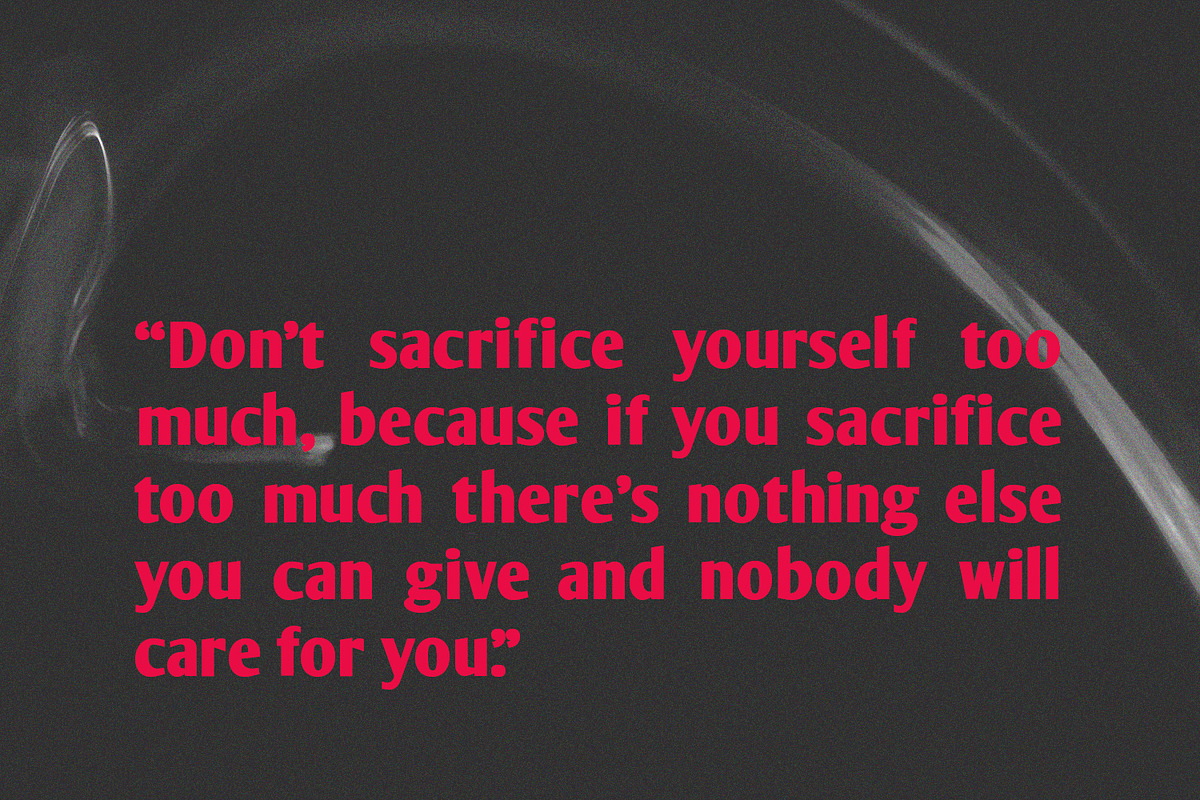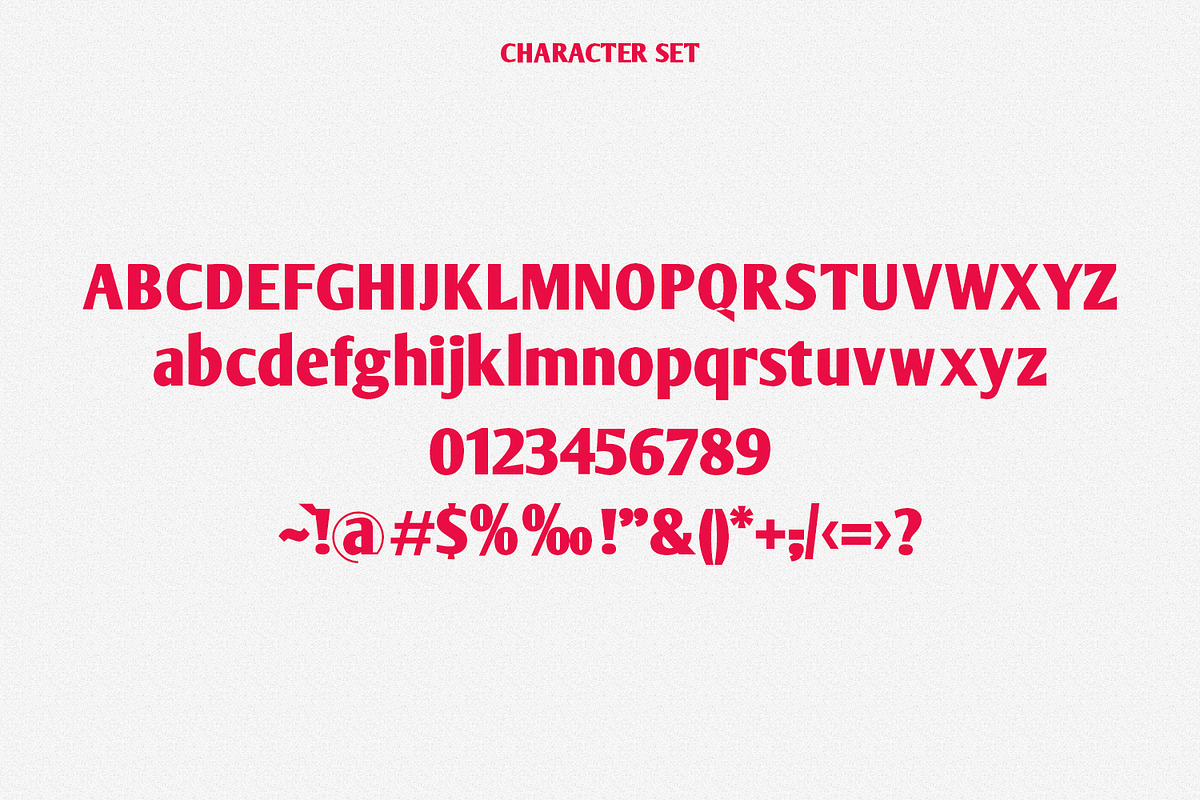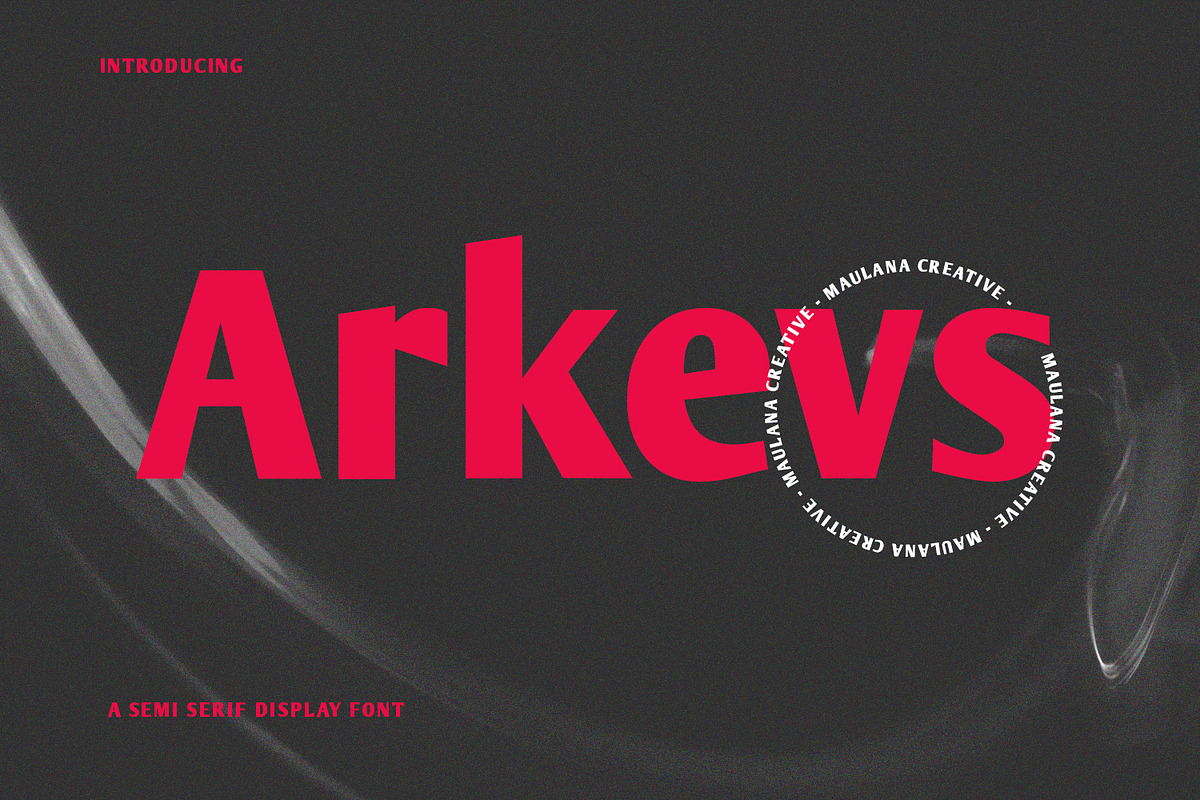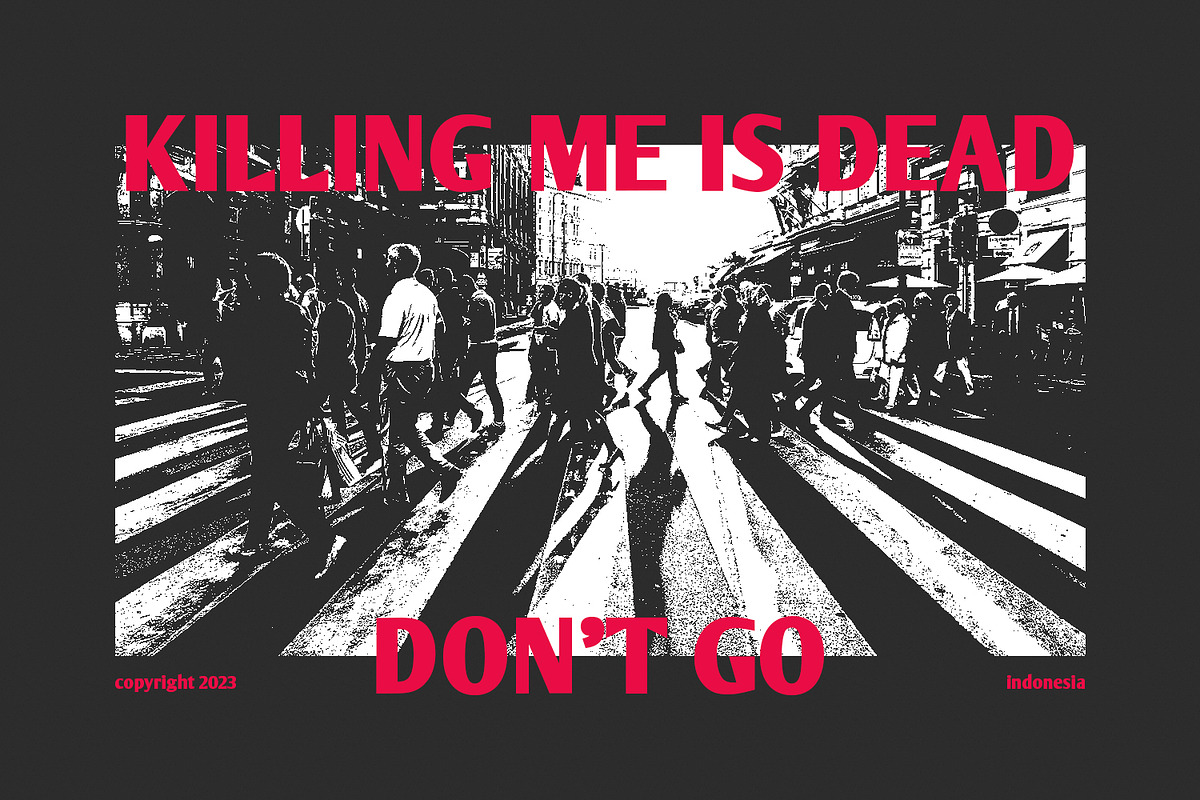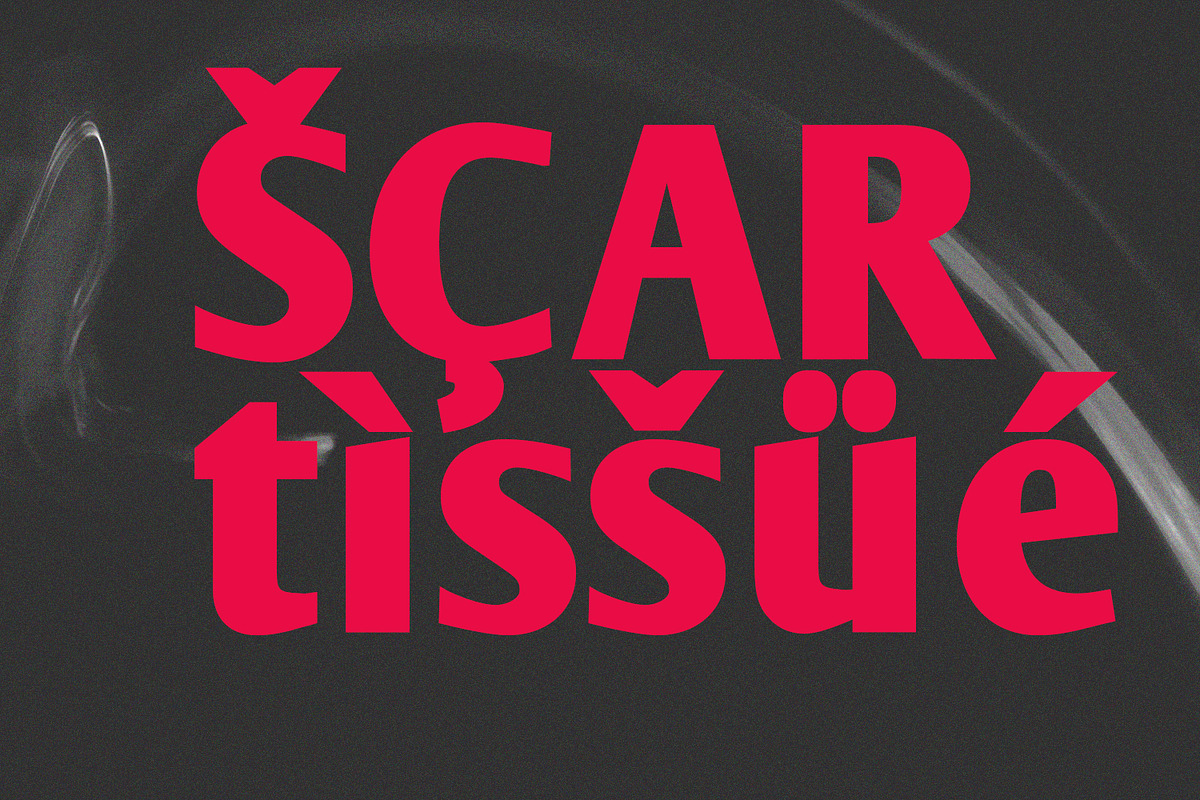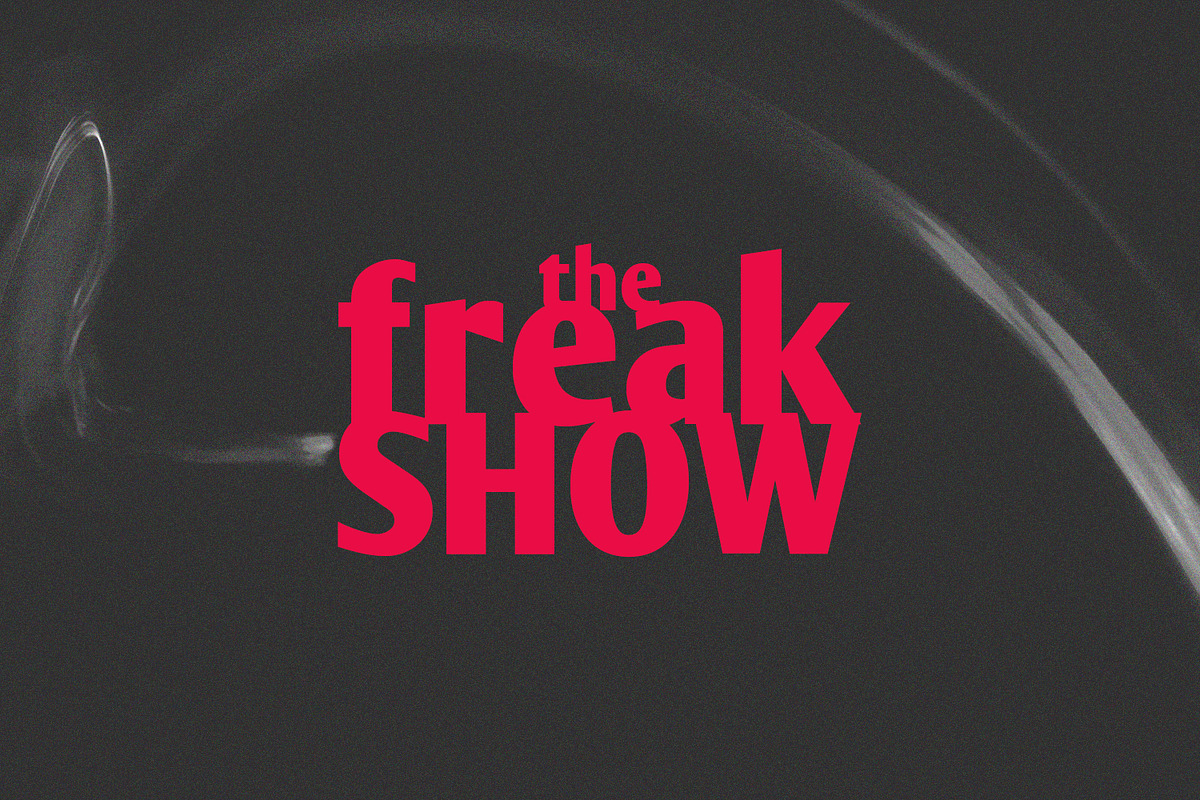
Arkevs Semi Serif Display Font
Arkevs is a modern Decorative contrast semi serif Display font. Bold stroke, fun character with a bit of ligatures and alternates. To give you an extra creative work. Arkevs font support multilingual more than 100+ language. This font is good for logo design, Social media, Movie Titles, Books Titles, a short text even a long text letter and good for your secondary text font with script or serif. Make a stunning work with Arkevs font. What you get: – Arkevs (OTF) – Arkevs (TTF) – Arkevs (WOFF) Cheers, Maulana Creative